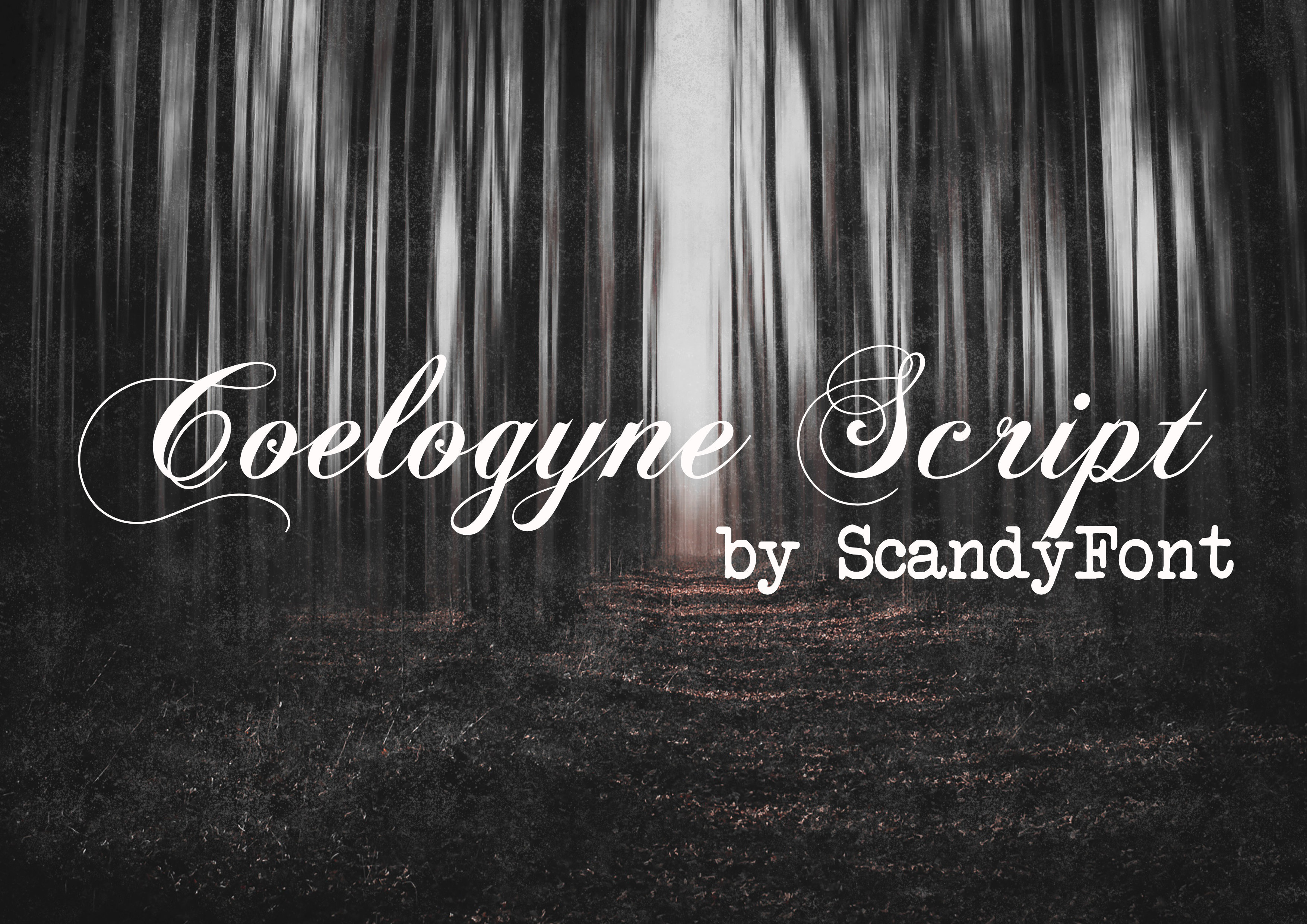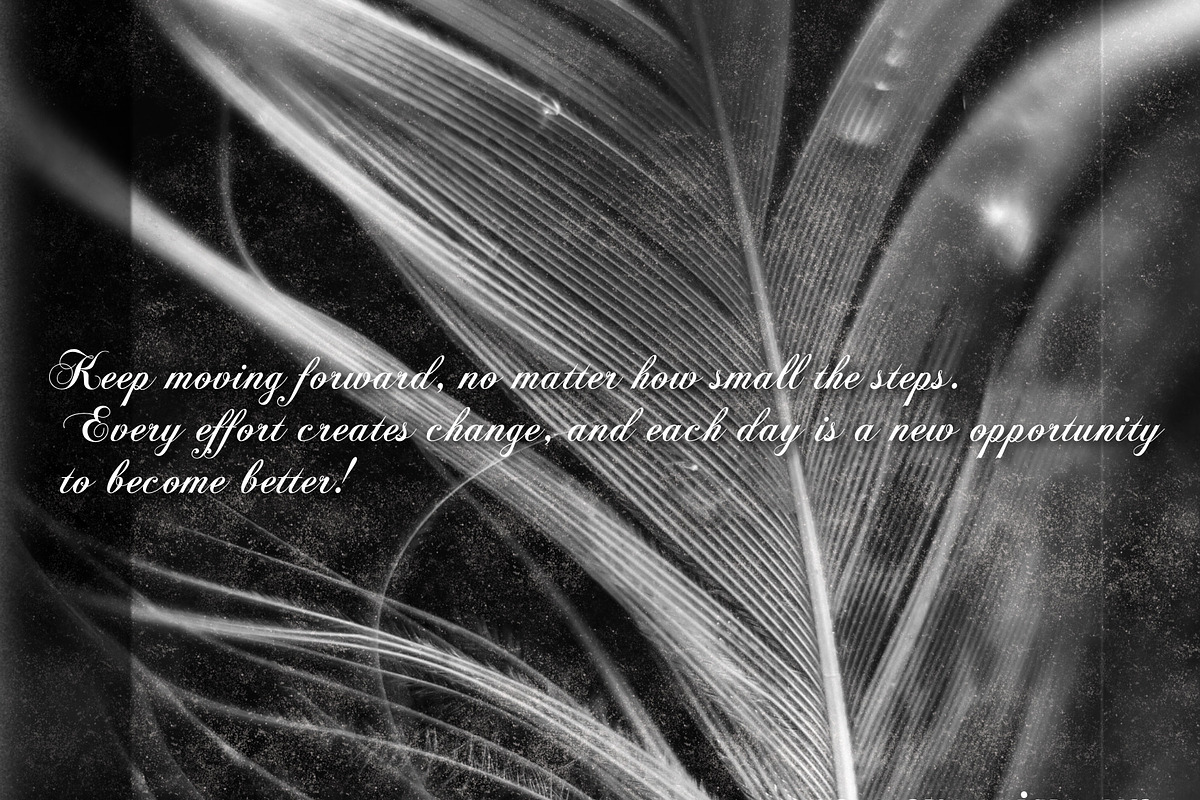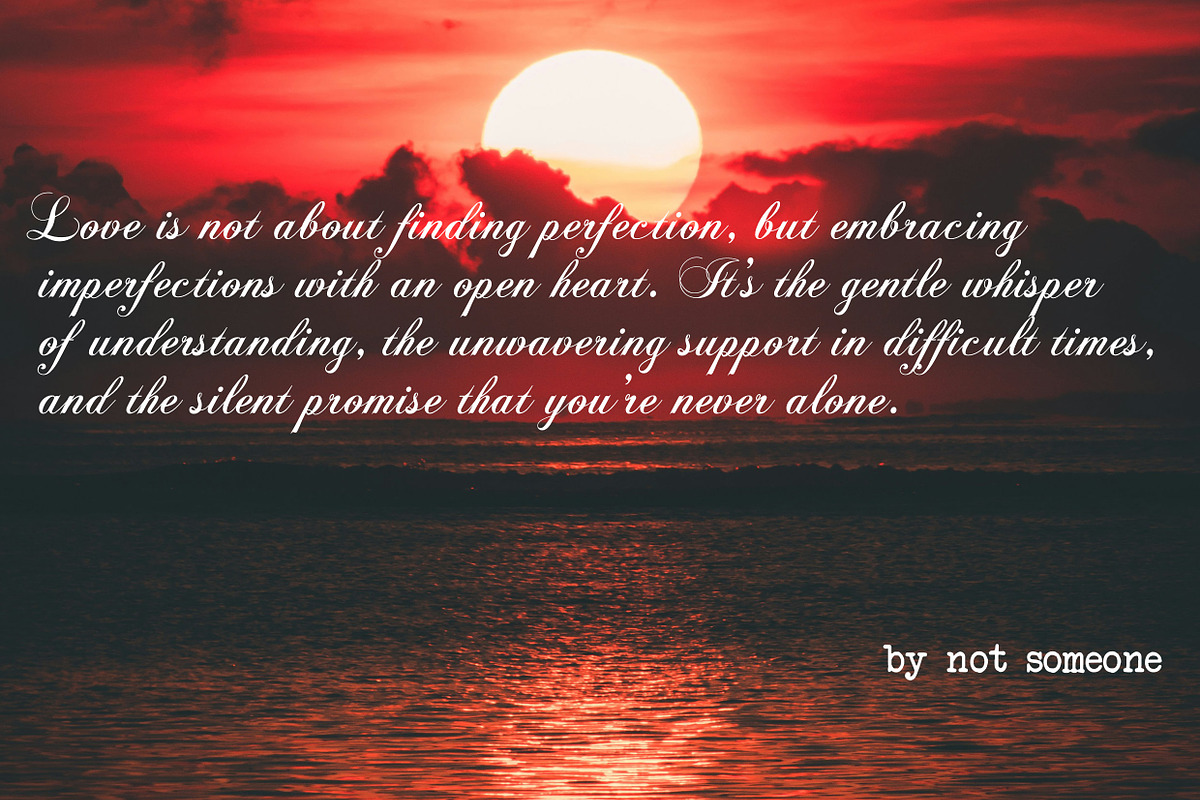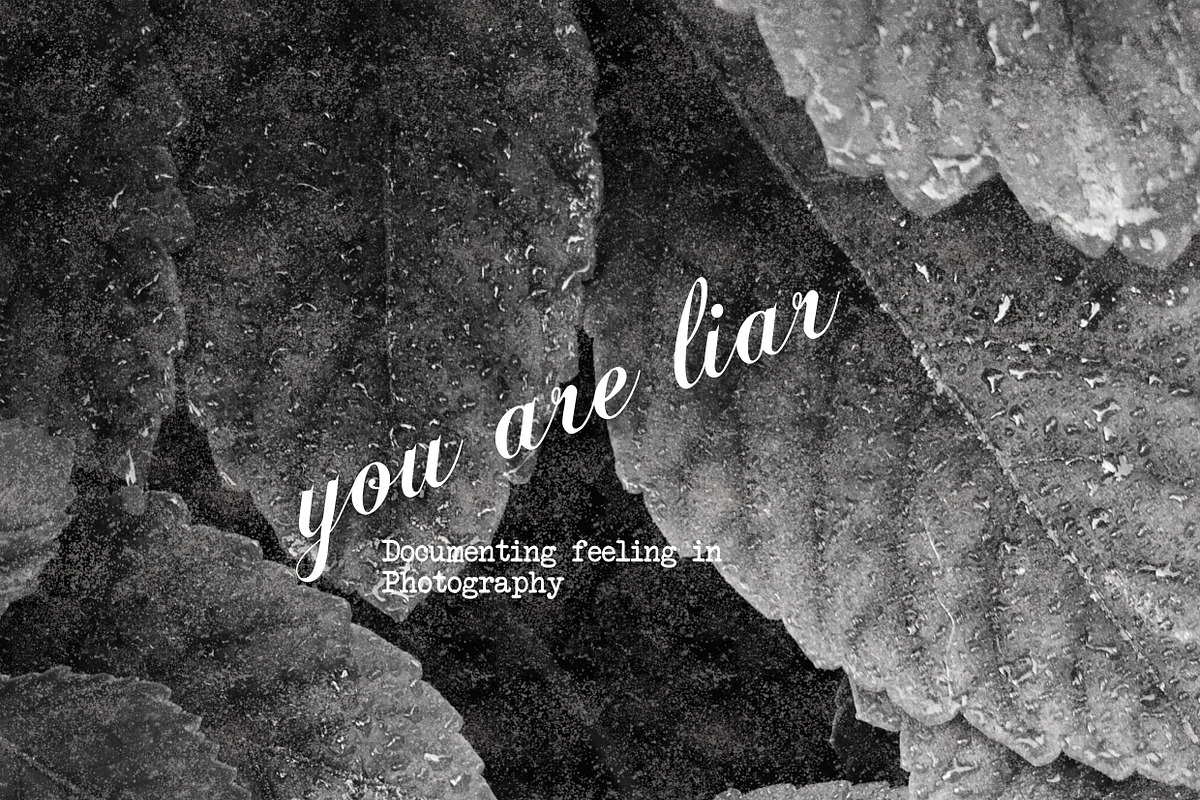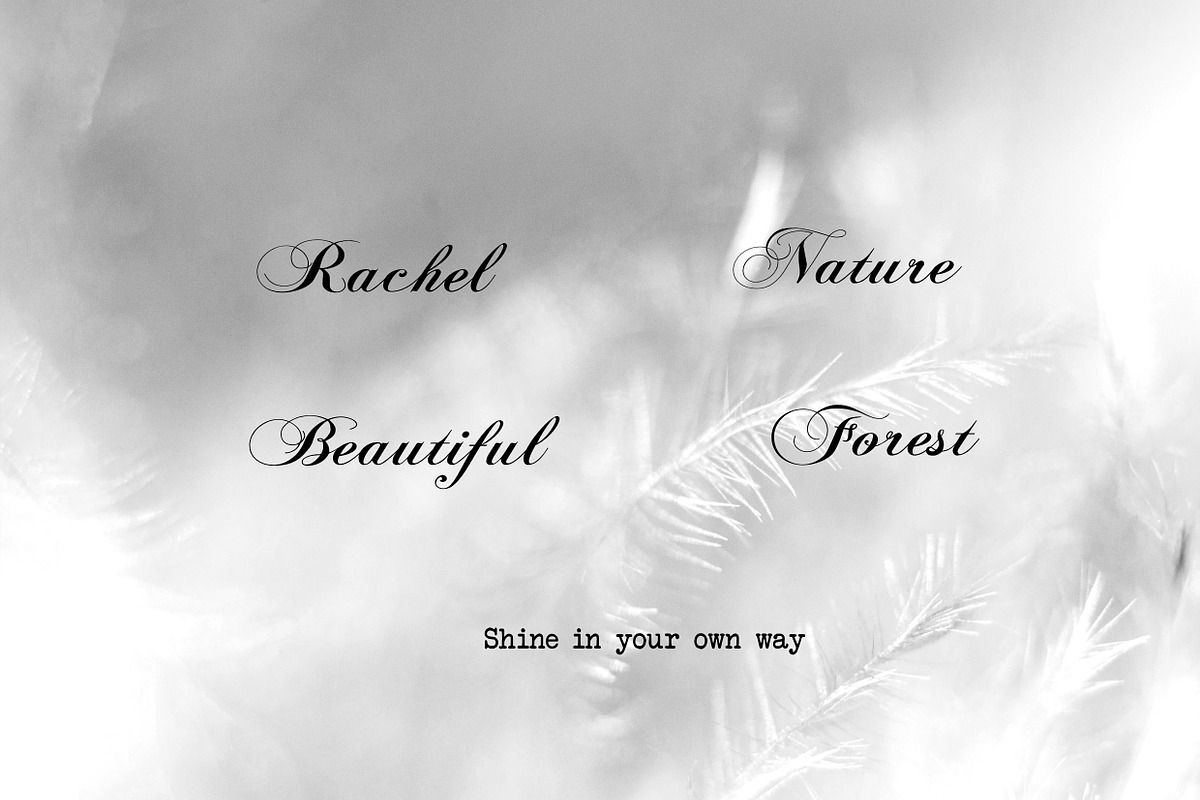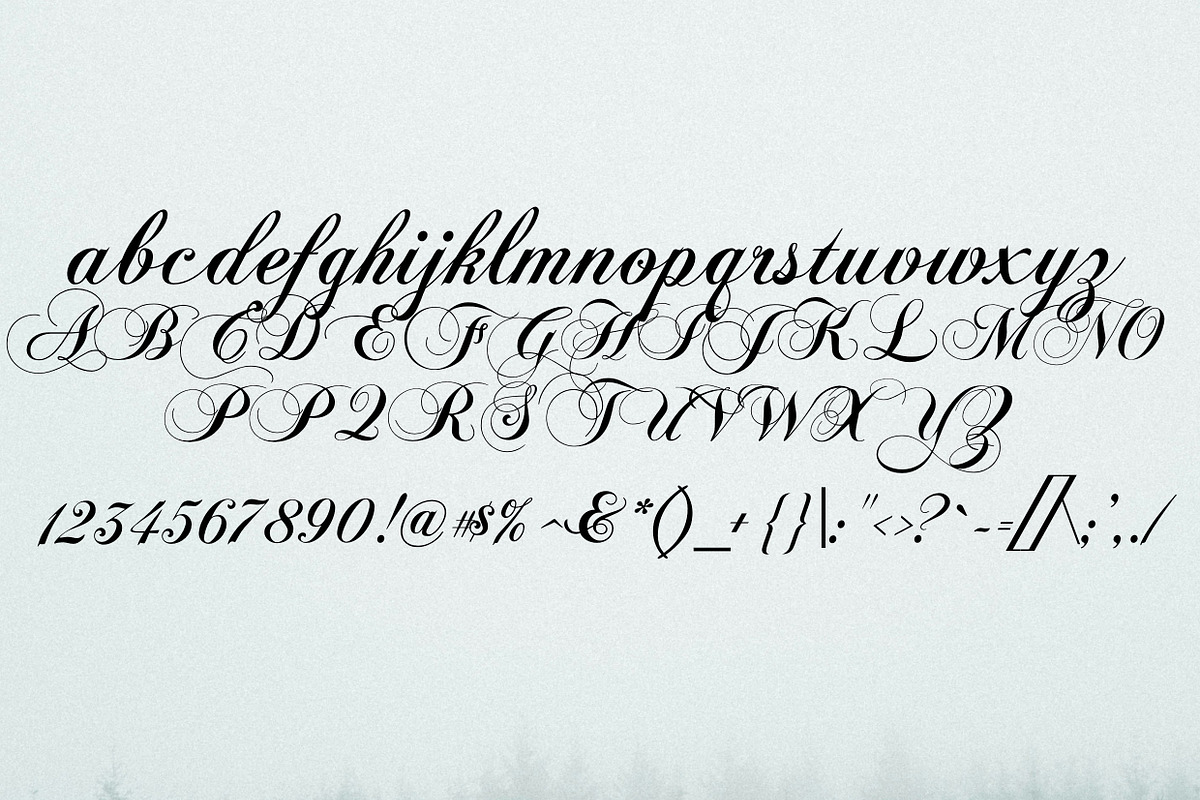
Coelogyne Script - Calligraphy Font
Bring timeless elegance to your designs with Coelogyne Script – a captivating calligraphy font! Coelogyne Script is crafted to infuse an artistic and graceful touch into every creative project. Its smooth curves and unique character make it perfect for wedding invitations, logo designs, greeting cards, posters, and other artistic endeavors. The calligraphy style exudes luxury and a personal charm, ensuring your designs stand out beautifully. Coelogyne Script is compatible with various devices and design applications, ready to become your go-to choice for unforgettable creations.